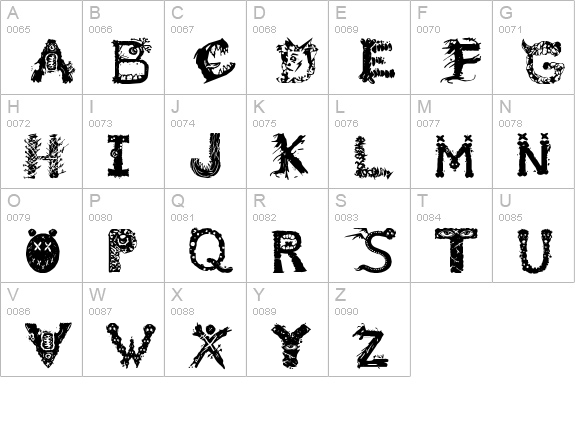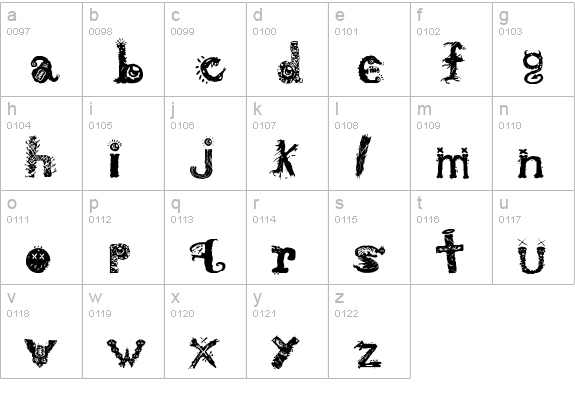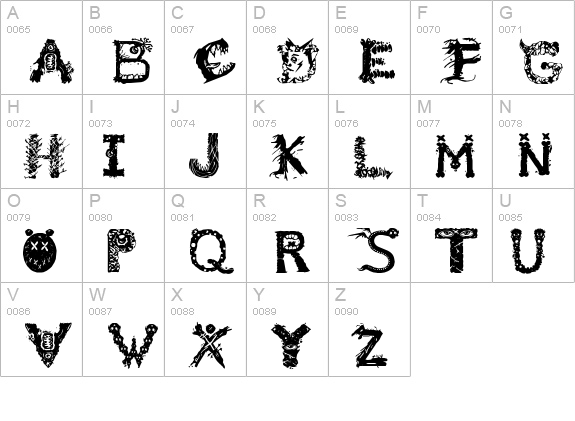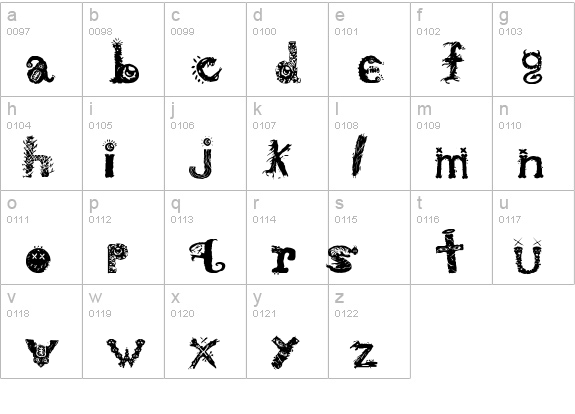
Monstrous Zosimus Font Details
Monstrous Zosimus font is a bold and striking typeface that embodies a sense of power and intensity. With its sharp edges and exaggerated proportions, this font exudes a monstrous presence that is sure to make a statement in any design project. The unique characteristics of Monstrous Zosimus set it apart from traditional fonts, making it a perfect choice for projects that require a touch of the extraordinary. Designed with creativity and originality in mind, Monstrous Zosimus font is a versatile typeface that can be used for a variety of design purposes, from branding to poster design to web graphics. Its bold and impactful appearance makes it ideal for headlines, titles, and other prominent text elements. The best part about Monstrous Zosimus font is that it is completely free to download at FontsMarket.com. This means that you can easily add this eye-catching typeface to your font collection without any cost. Don't miss out on the opportunity to enhance your designs with the powerful and distinctive style of Monstrous Zosimus font - download it today and unleash your creativity!